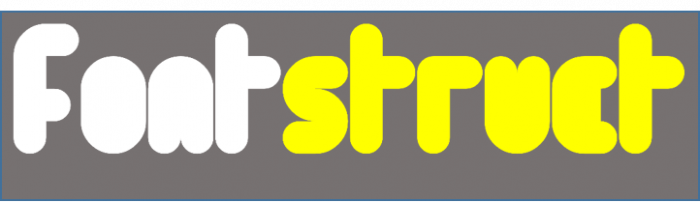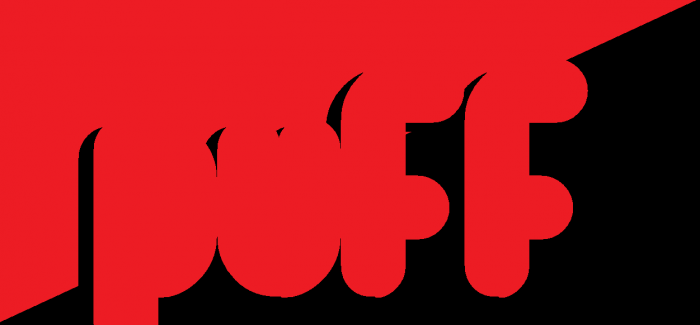
This is my font Puff
4 has too much spacing by half a brick to the right... (Menu > View > Letter Width)
Also, this should be the new logo...
Yea it would be the new logo
This Is my Fontstruct logo
More samples?
Puff is Based in orange font but not cloned
a shadow sample!